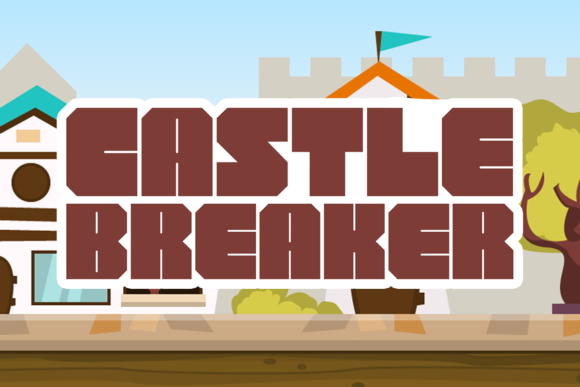
Embark on a typographic adventure with Castle Breaker, the display font that unlocks the gateway to captivating designs. Its bold strokes and striking presence make it the perfect choice for those seeking to leave an unforgettable impression.
Unleash your creativity with Castle Breaker's versatility, spanning from bold headlines to enchanting logos. Let your imagination soar as you craft eye-catching invitations, greeting cards, and any project that demands a touch of timeless elegance.
Step into a world where language barriers fade away. Castle Breaker's multilingual prowess empowers you to connect with audiences across borders, ensuring your message resonates with a global touch.
Experience the transformative power of style variations, where each nuance adds a layer of depth and personality to your work. Whether you seek a touch of whimsy or a hint of sophistication, Castle Breaker's diverse styles will cater to your every whim.
With Castle Breaker in your creative arsenal, prepare to witness the metamorphosis of your designs. Its enchanting allure will captivate your audience, leaving them spellbound by the sheer beauty of your creations.
Embrace the allure of Castle Breaker today, and let your imagination ignite with the boundless possibilities it holds. Elevate your designs to the realm of the extraordinary, where every letter tells a captivating story.